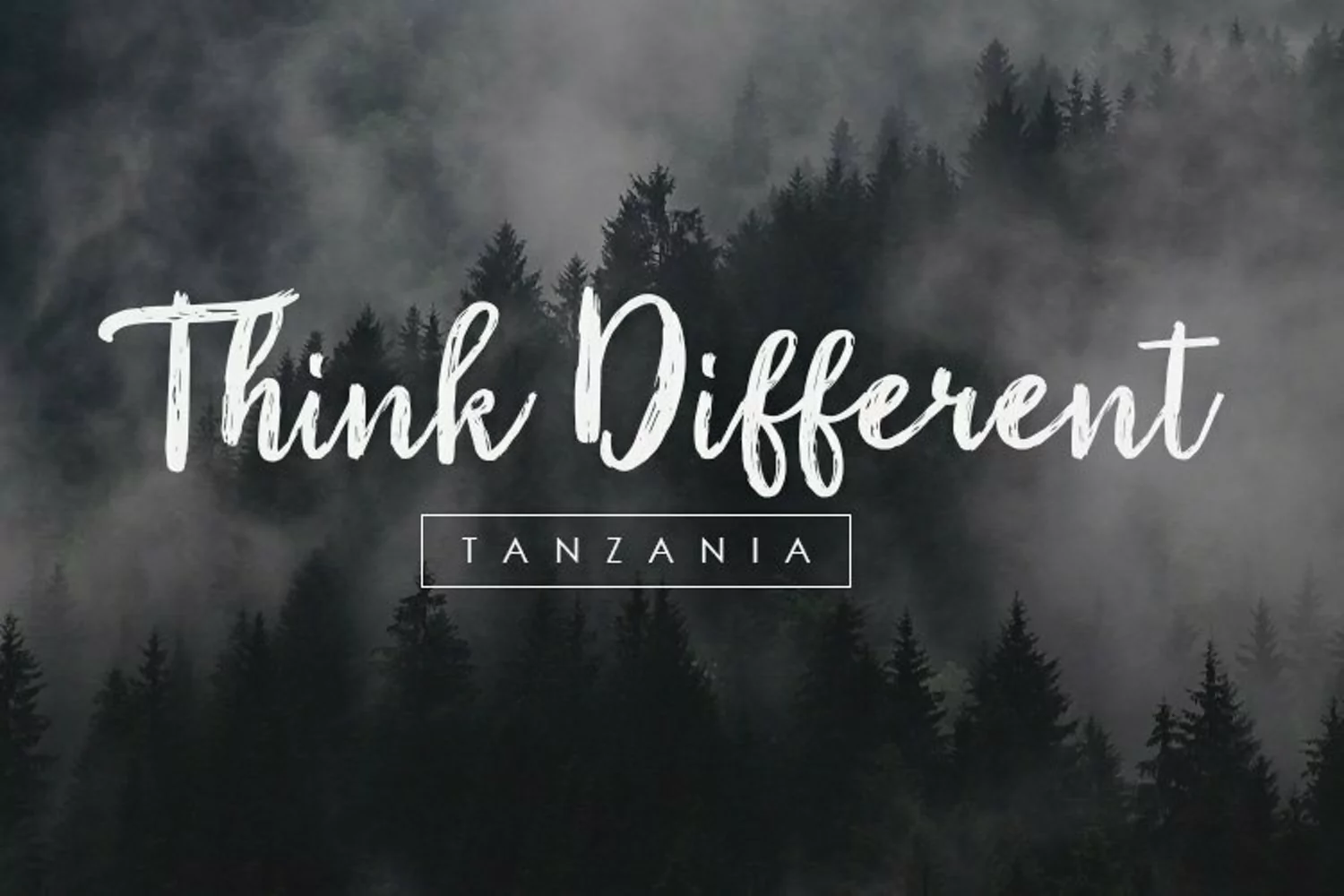
Web Font Tanzania Script Font
Introducing: Tanzania, dapper handwritten font with a charm style.
With quick dry strokes and a beautiful style, Tanzania good for your
logo design, poster design, apparel design, etc. perfect for branding
projects, homeware designs, product packaging or simply as a stylish
text overlay to any background image.
• Uppercase,
• Numeral
• International Glyphs